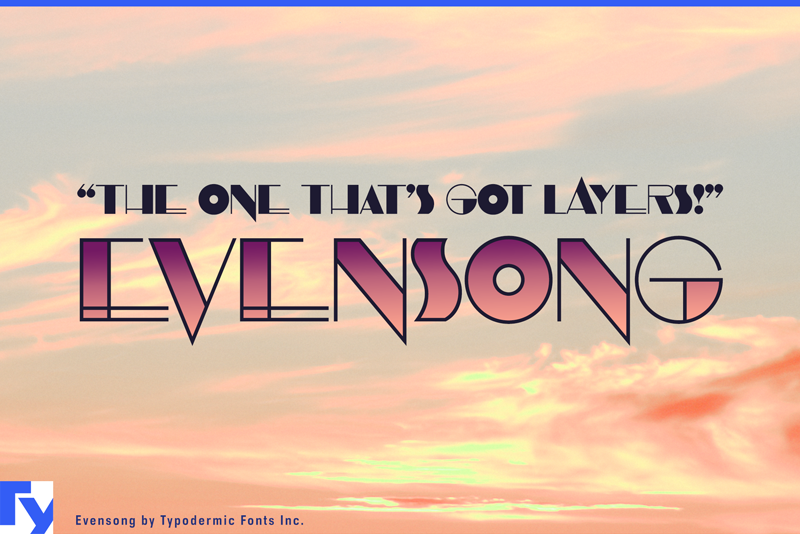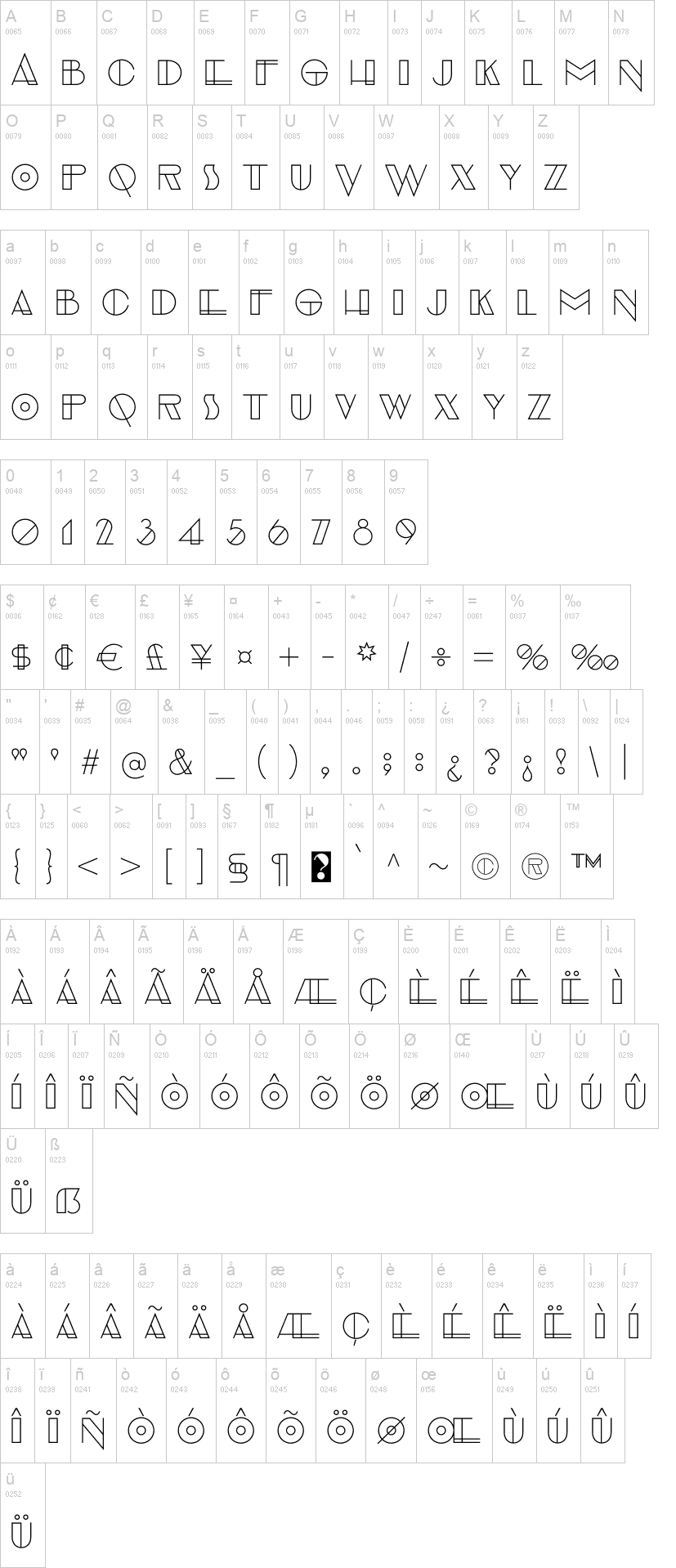
Note of the authorEvensong is an art deco geometric typeface. While extreme thick/thin letters are common, Evensong stands out by making dramatic choices. Deliver your message with stylistic flair. You can use the Solid and Hollow styles independently, or you can stack layers of Solid and Fill. Experiment with different color combinations and layers. Most Latin-based European, Vietnamese, Greek, and most Cyrillic-based writing systems are supported, including the following languages. Afaan Oromo, Afar, Afrikaans, Albanian, Alsatian, Aromanian, Aymara, Azerbaijani, Bashkir, Bashkir (Latin), Basque, Belarusian, Belarusian (Latin), Bemba, Bikol, Bosnian, Breton, Bulgarian, Buryat, Cape Verdean, Creole, Catalan, Cebuano, Chamorro, Chavacano, Chichewa, Crimean Tatar (Latin), Croatian, Czech, Danish, Dawan, Dholuo, Dungan, Dutch, English, Estonian, Faroese, Fijian, Filipino, Finnish, French, Frisian, Friulian, Gagauz (Latin), Galician, Ganda, Genoese, German, Gikuyu, Greenlandic, Guadeloupean Creole, Haitian Creole, Hawaiian, Hiligaynon, Hungarian, Icelandic, Igbo, Ilocano, Indonesian, Irish, Italian, Jamaican, Kaingang, Khalkha, Kalmyk, Kanuri, Kaqchikel, Karakalpak (Latin), Kashubian, Kazakh, Kikongo, Kinyarwanda, Kirundi, Komi-Permyak, Kurdish, Kurdish (Latin), Kyrgyz, Latvian, Lithuanian, Lombard, Low Saxon, Luxembourgish, Maasai, Macedonian, Makhuwa, Malay, Maltese, Māori, Moldovan, Montenegrin, Nahuatl, Ndebele, Neapolitan, Norwegian, Novial, Occitan, Ossetian (Latin), Papiamento, Piedmontese, Polish, Portuguese, Quechua, Rarotongan, Romanian, Romansh, Russian, Rusyn, Sami, Sango, Saramaccan, Sardinian, Scottish Gaelic, Serbian, Serbian (Latin), Shona, Sicilian, Silesian, Slovak, Slovenian, Somali, Sorbian, Sotho, Spanish, Swahili, Swazi, Swedish, Tagalog, Tahitian, Tajik, Tatar, Tetum, Tongan, Tshiluba, Tsonga, Tswana, Tumbuka, Turkish, Turkmen (Latin), Tuvaluan, Ukrainian, Uzbek, Uzbek (Latin), Venda, Venetian, Vepsian, Vietnamese, Võro, Walloon, Waray-Waray, Wayuu, Welsh, Wolof, Xavante, Xhosa, Yapese, Zapotec, Zarma, Zazaki, Zulu and Zuni.